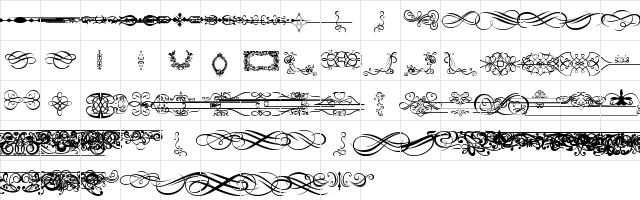
ornaments labels and frames Regular
Design Context for ornaments labels and frames Typeface
ornaments labels and frames is built around its visual character rather than neutral utility — its distinctive forms are designed to make an impression at display sizes.
Font Pairing: Pair with a clean neutral sans-serif for body copy to let ornaments labels and frames's character lead without overwhelming the composition.
Pro Tip: Treat ornaments labels and frames as the centrepiece of your typographic hierarchy. One strong heading set in a decorative face can carry an entire layout.